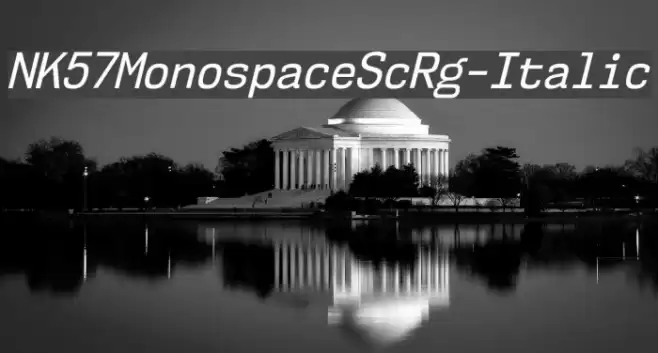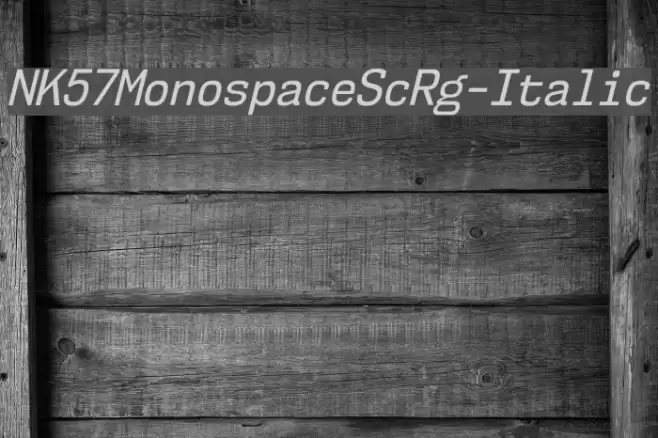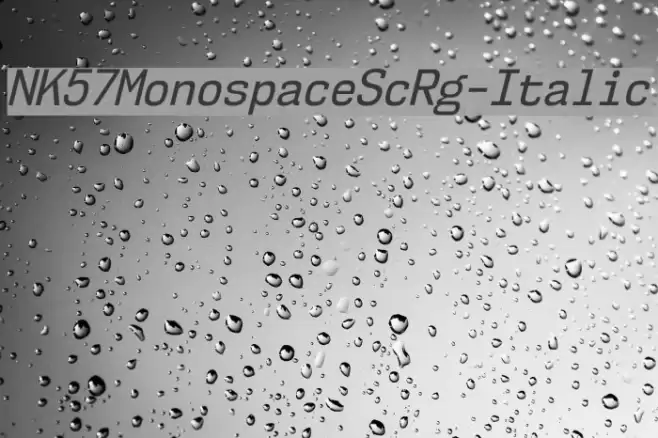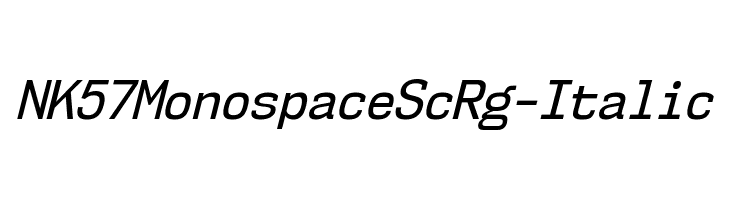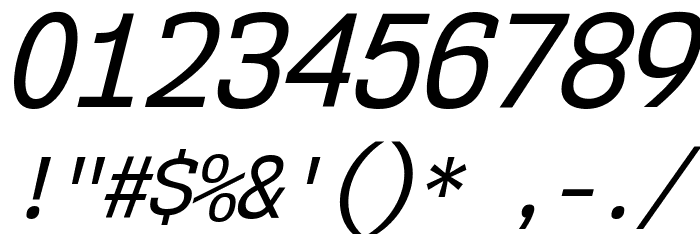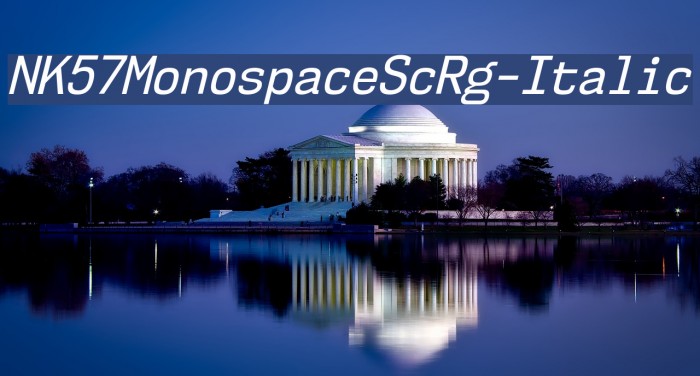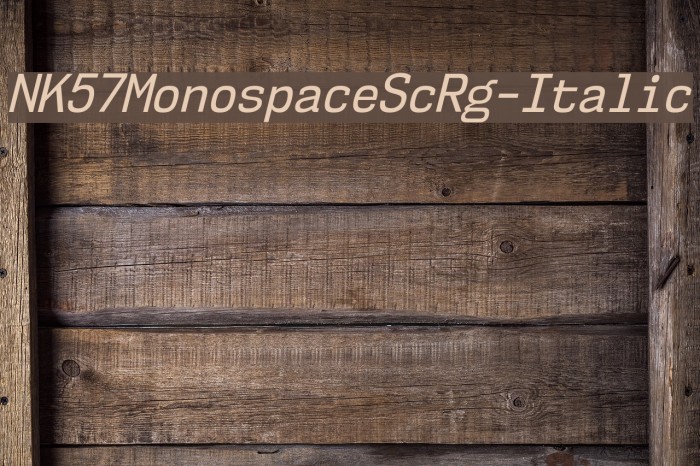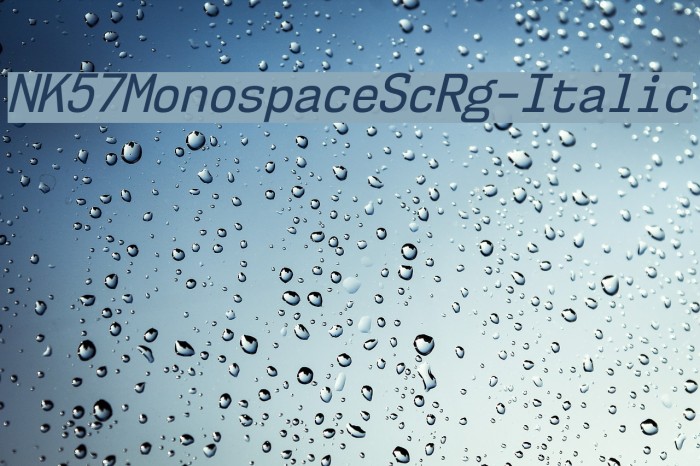
NK57MonospaceScRg-Italic Font
This font features a clean, modern design with a monospaced structure, ensuring each character occupies the same amount of horizontal space. The italic style adds a dynamic and slightly forward-leaning appearance, making it suitable for both technical and creative applications. The characters are well-defined with a consistent stroke width, providing a uniform look across all letters and numbers. The font includes a full set of uppercase and lowercase letters, numerals, and a variety of special characters, making it versatile for different types of text. Its simplicity and clarity make it ideal for coding, technical documentation, and any project requiring a structured and professional appearance.
A modern, monospaced italic font with clean lines and uniform spacing from Basic fonts.
- Proposed Projects: Ideal for coding, technical documentation, and design projects requiring a structured, professional look.
- Use Case: Coding, Technical documentation, Design projects